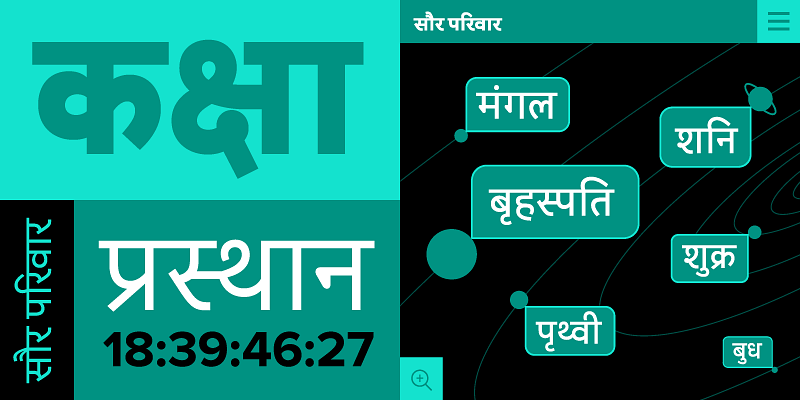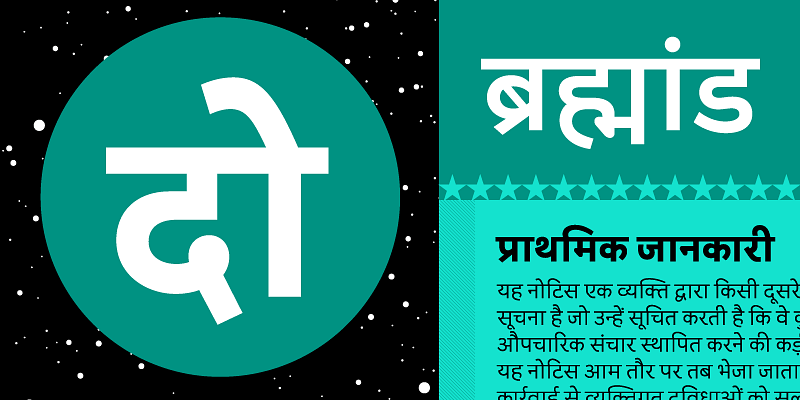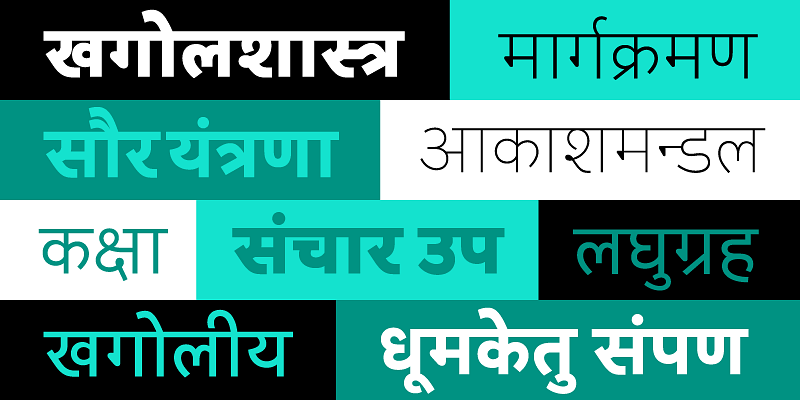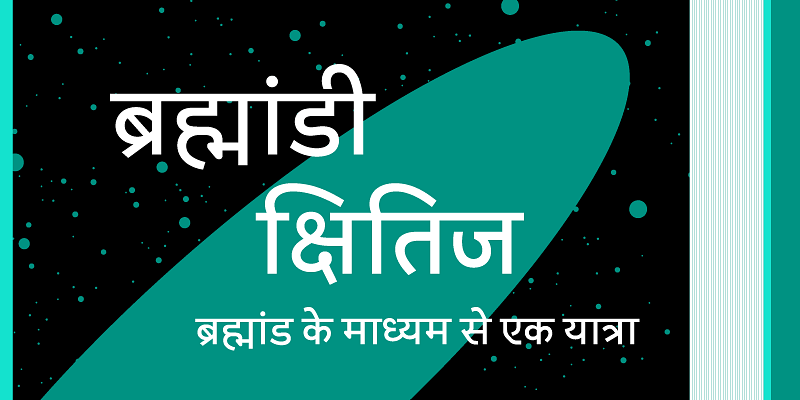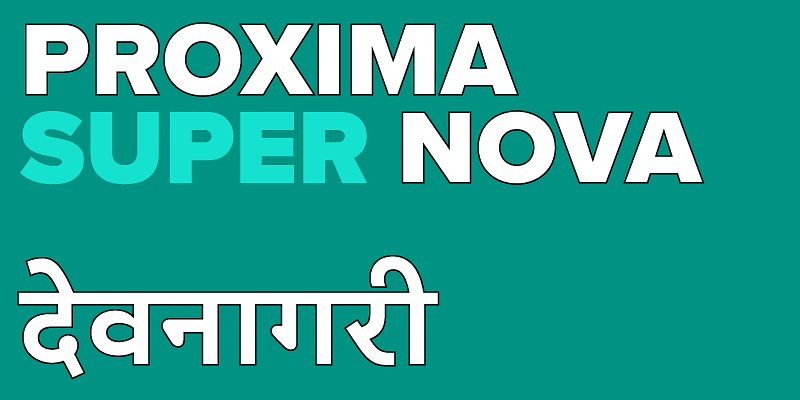
Proxima Nova Devanagari (2024) was designed by Vaibhav Singh and Alessia Mazzarella of Typeland for Mark Simonson’s ever-popular Proxima Nova. The script was created with subtleties of flavor, making it distinctly its own without Latinization—as a partner for use with Proxima Nova. Featuring an extended Latin and Devanagari character set with Marathi and Nepali stylistic sets in eight weights—from Thin to Black—this growing family of typefaces is set to become even more popular worldwide.